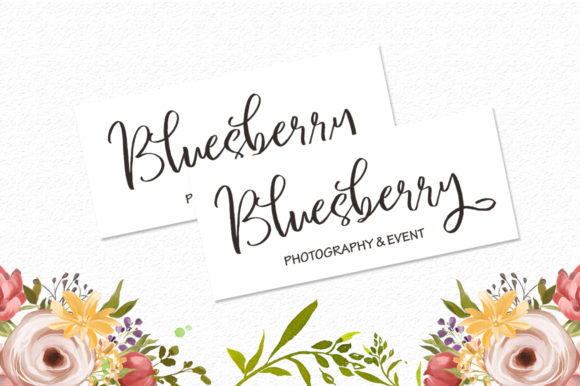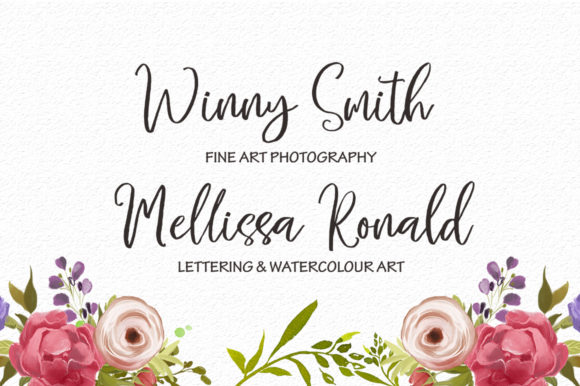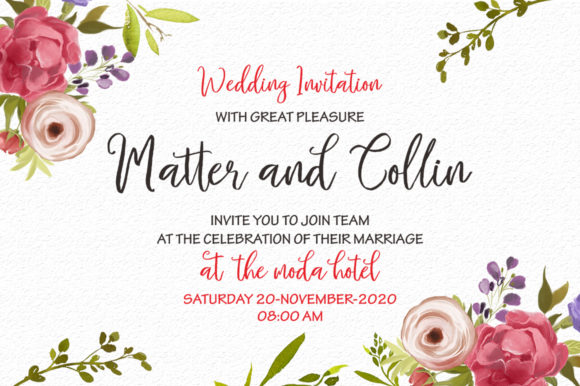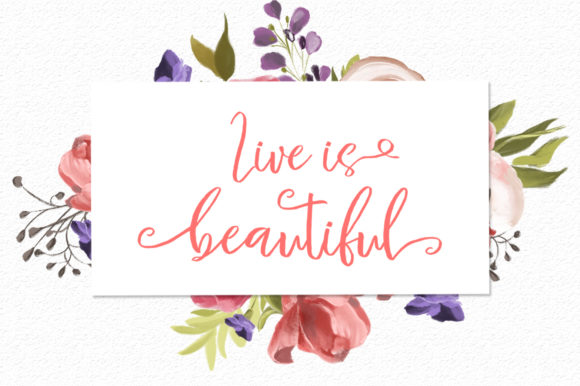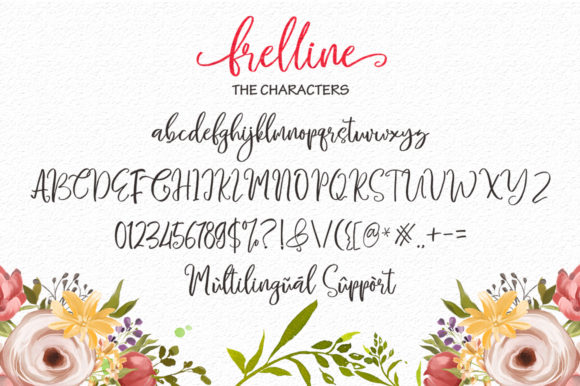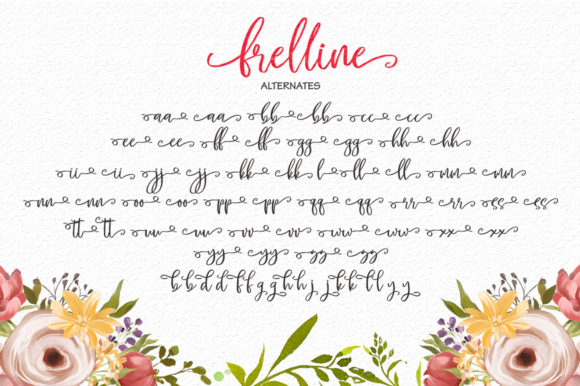
There’s nothing quite like the thrill of brainstorming a new idea, surrounded by scraps of paper, colorful pens, and a dash of creative chaos. As you begin to sketch out your vision, you realize that the right font can make all the difference. That’s where the Frelline Font comes in – a delightful, handwritten script that’s sure to add a touch of personality to your designs.
This charming font is more than just a pretty face; it’s a versatile tool that can be used for everything from Instagram posts to DIY projects. With its gorgeous swashes and ligatures, the Frelline Font is perfect for designers looking to add a bit of whimsy and flair to their work. Whether you’re a seasoned pro or just starting out, this font is sure to become a trusted companion in your creative journey.
Frelline Font Key Features
- Font Family: Frelline Font is a script font family, ideal for creative and artistic purposes.
- Unique Characteristics: Features elegant, flowing lines and subtle flourishes, making it perfect for invitations, wedding stationery, and other special occasions.
Frelline Font Review
I recently had the chance to work with the Frelline Font, and I must say, it’s a mixed bag. Here are my thoughts.
- Unique design: The Frelline Font has a distinctive look that sets it apart from other fonts.
- Legibility: It’s relatively easy to read, even at smaller font sizes.
- Playful vibe: The font’s quirky feel makes it perfect for creative projects or branding that wants to stand out.
- Limited font sizes: The font starts to break apart and lose its charm at larger font sizes.
- Lack of consistency: The font’s irregular shape can make it difficult to pair with other fonts.
- Not ideal for long blocks of text: Due to its unique design, the font can be tiring to read when used extensively.
Overall, the Frelline Font is a great choice for projects where you want to add a touch of whimsy and personality. However, it’s not a good fit for every project, and it’s essential to consider its limitations before using it extensively.
Frelline Font Practical Application Guide
The Frelline Font is a unique and elegant script font that can add a touch of sophistication to your designs. To use it, follow these steps:
To get the most out of the Frelline Font, try using it for titles and headings to add visual interest to your designs.
Experiment with different font sizes and colors to create a unique and eye-catching look.
The Frelline Font is perfect for:
Branding and marketing materials
Editorials and publications
Alternatives to Frelline Font
Comparison to Frelline Font: Montserrat is more geometric and bold, while Frelline Font has a more elegant and cursive feel.
Alegreya Font
Alegreya is a serif font that is highly legible and elegant. It is suitable for a wide range of applications, from body text to headings. It is a great alternative to Frelline Font when you need a sophisticated and refined look.
Comparison to Frelline Font: Alegreya is more traditional and serif-based, while Frelline Font has a more modern and cursive feel.
Arimo Font
Arimo is a sans-serif font that is highly legible and clean. It is suitable for a wide range of applications, from body text to headings. It is a great alternative to Frelline Font when you need a simple and modern look.
Comparison to Frelline Font: Arimo is more geometric and straightforward, while Frelline Font has a more elegant and cursive feel